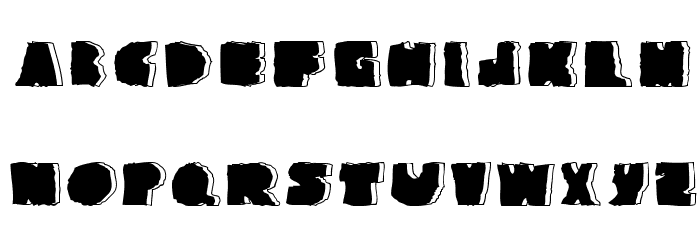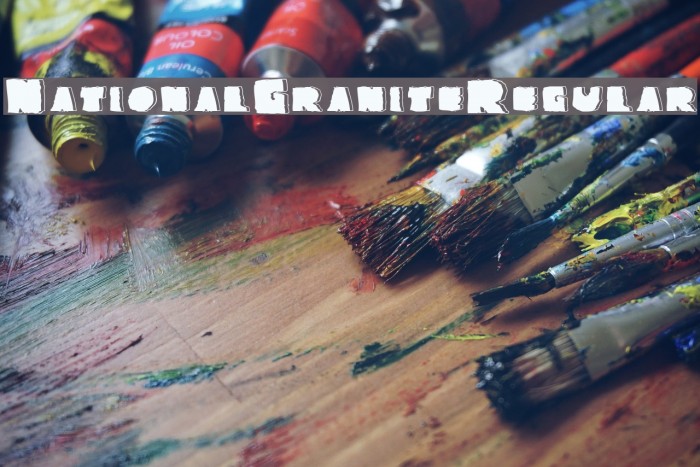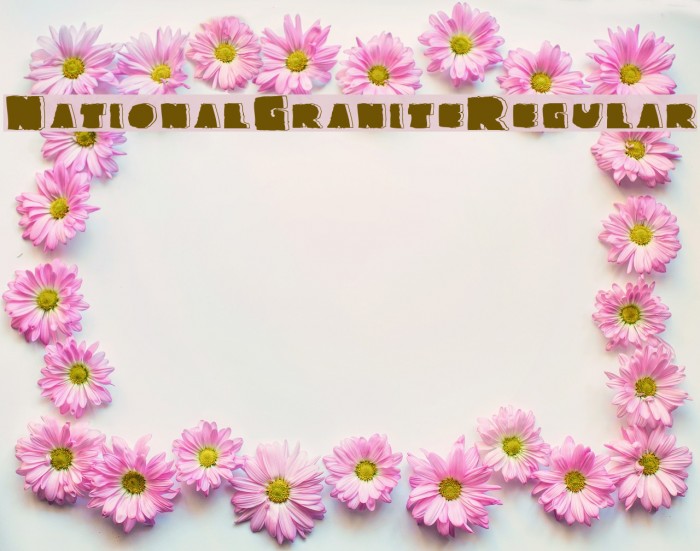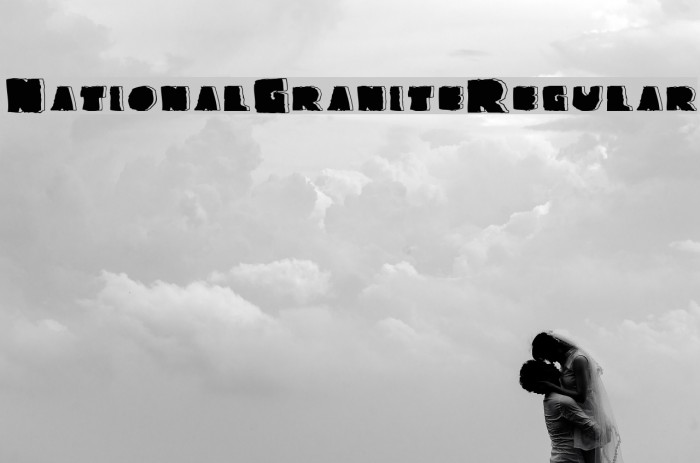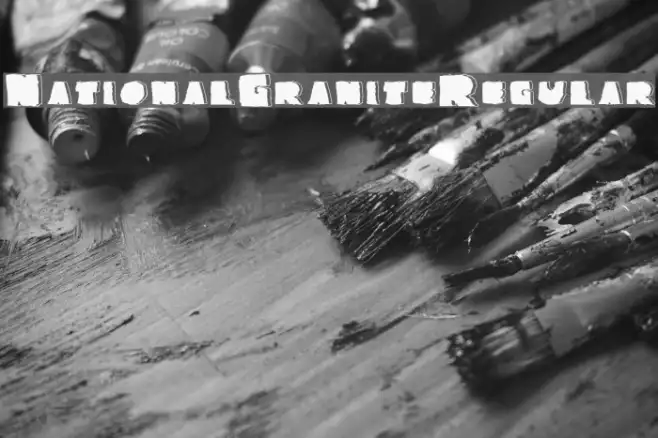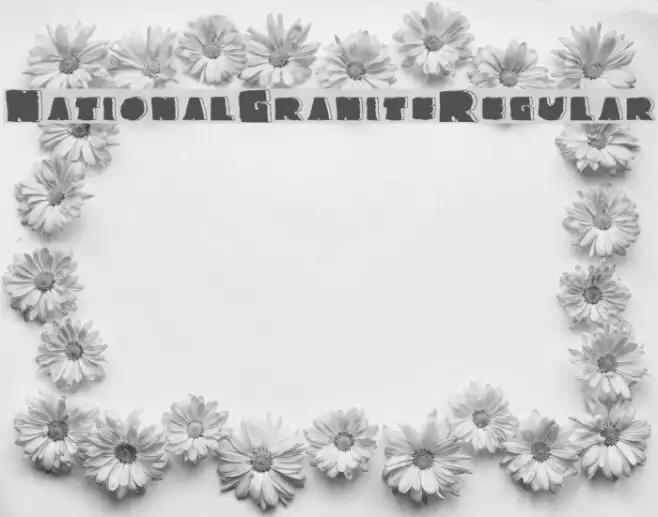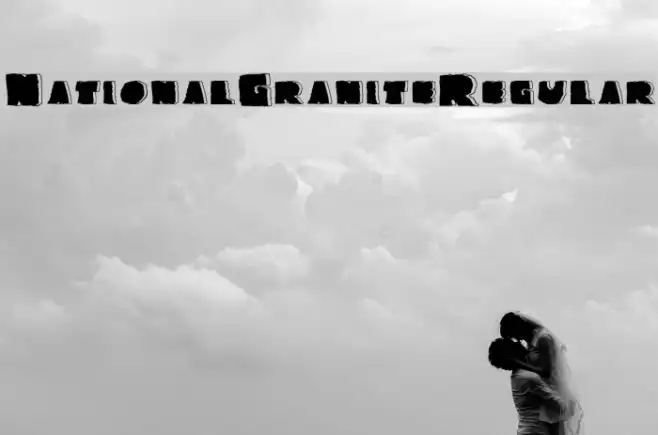
NationalGranite-Regular Font
This font features a bold and rugged design, characterized by its distressed and textured appearance. The letters have a chiseled look, reminiscent of stone or granite, giving it a unique and impactful style. The uppercase and lowercase letters maintain a consistent width, with irregular edges that add to its raw and natural aesthetic. The numbers and special characters follow the same design principles, ensuring a cohesive look across all glyphs. This font is ideal for projects that require a strong and distinctive visual presence.
A bold, textured font with a rugged, stone-like appearance.
- Proposed Projects: Perfect for branding, posters, album covers, and any design needing a strong, distinctive look.